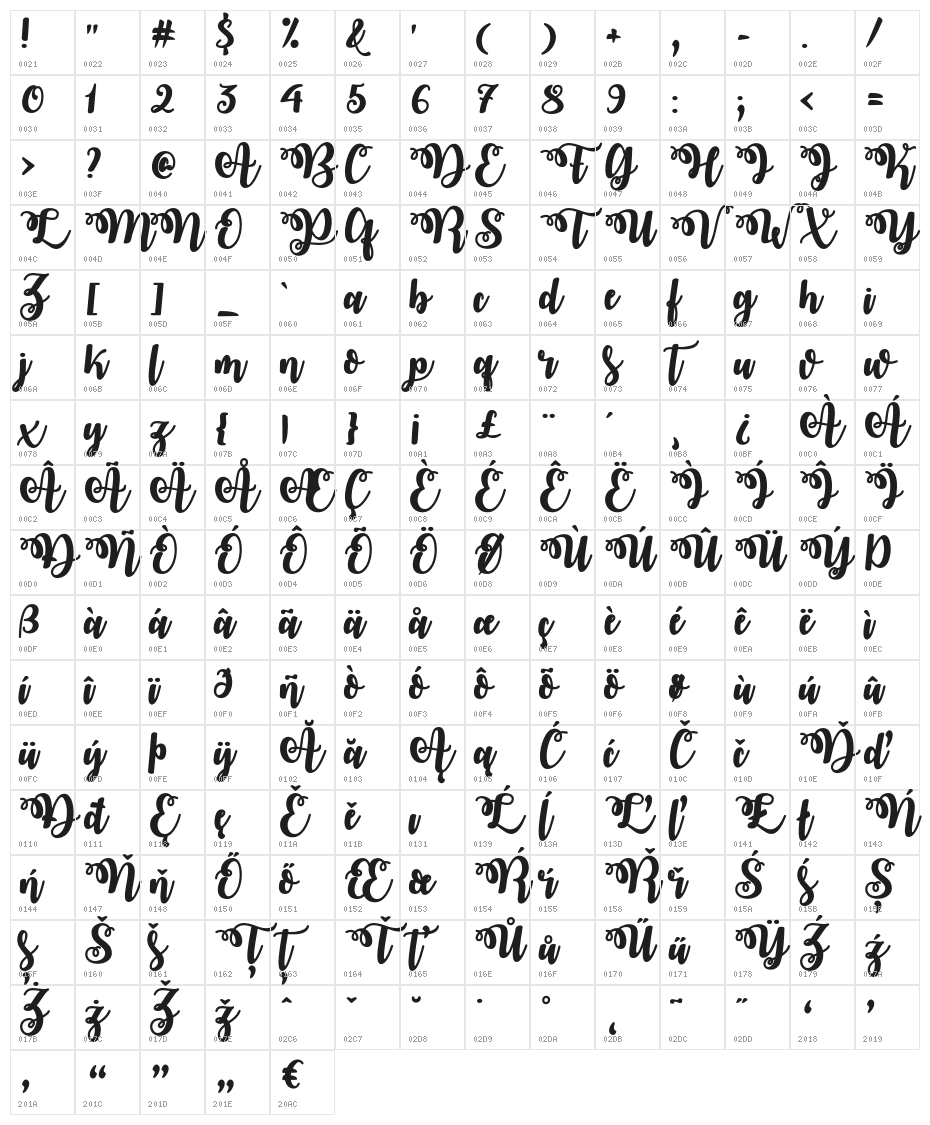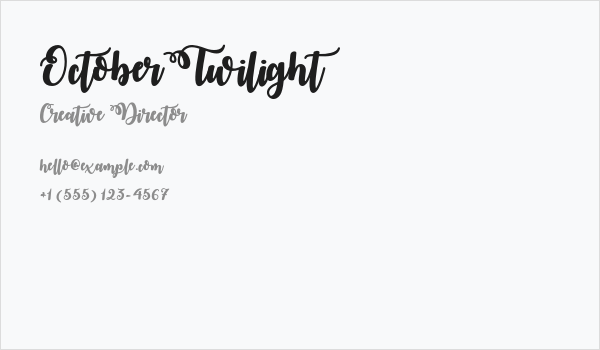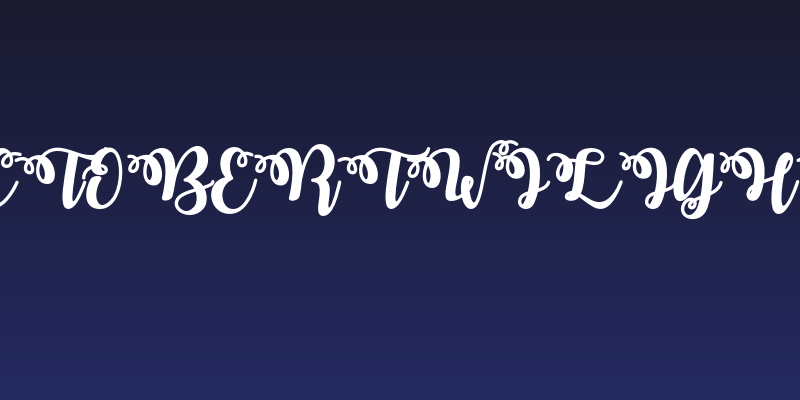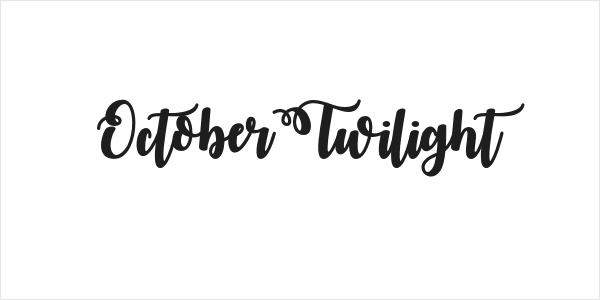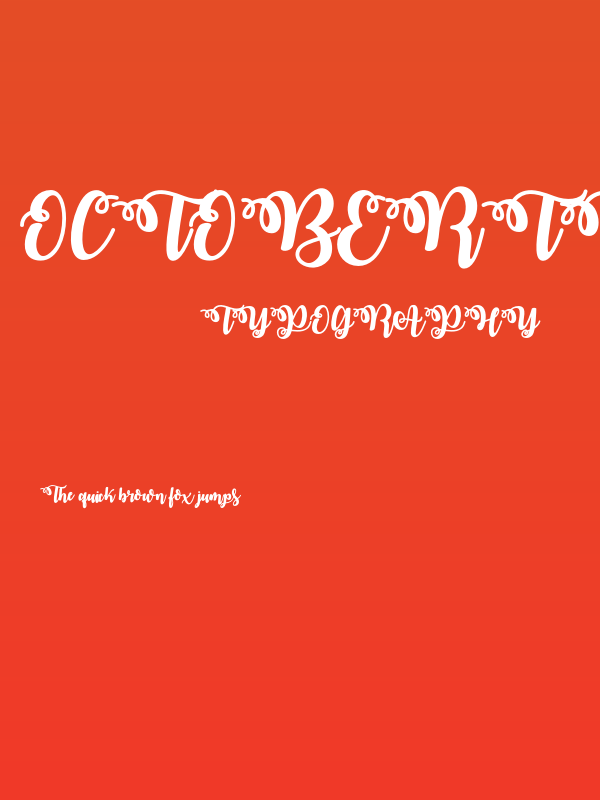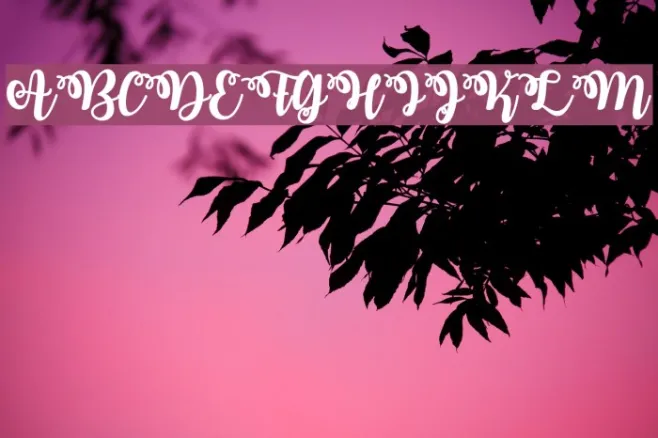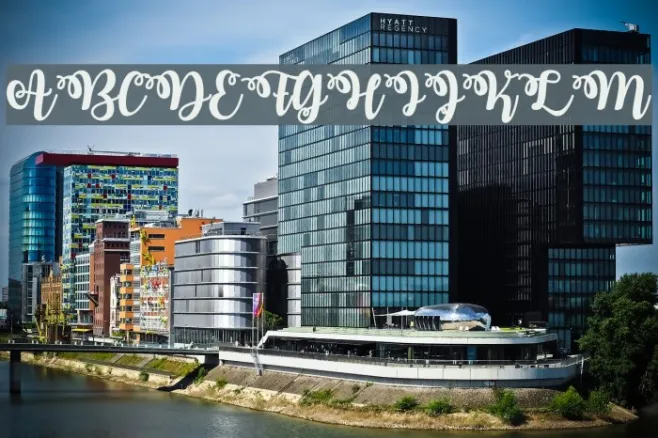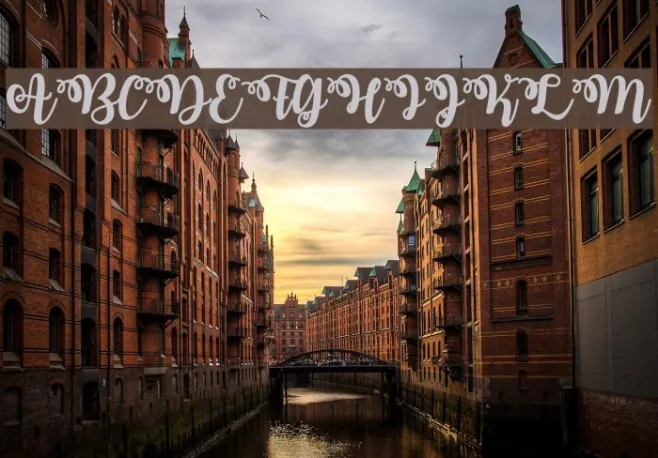
OctoberTwilight Font
OctoberTwilight Description
This font features a whimsical and decorative style with intricate swirls and loops that add a playful touch to each character. The uppercase letters are adorned with unique embellishments, making them stand out with an artistic flair. The lowercase letters maintain a flowing, cursive-like appearance, enhancing the overall elegance. The numerals and special characters are consistent with the font's ornate design, providing a cohesive look. This font is ideal for projects that require a touch of creativity and sophistication.
| Proposed Projects | Ideal for wedding invitations, greeting cards, branding, and decorative signage. |